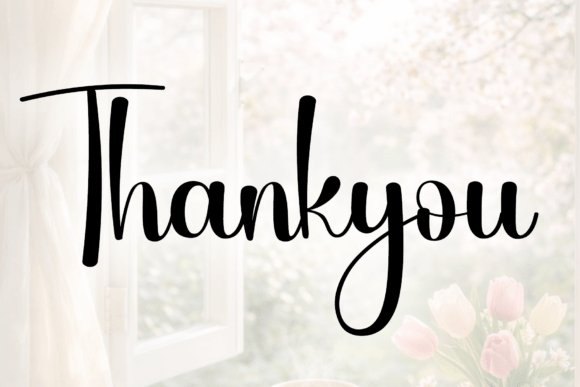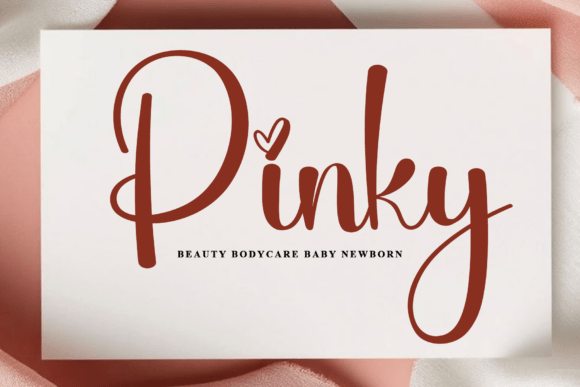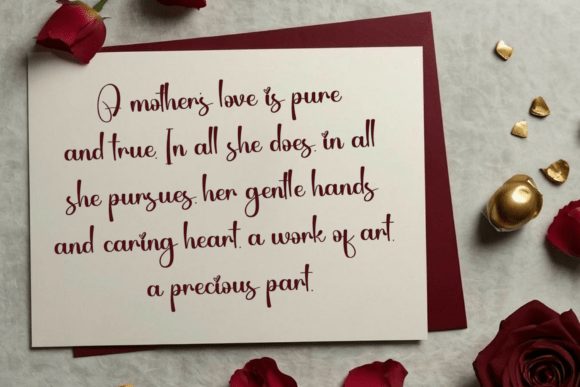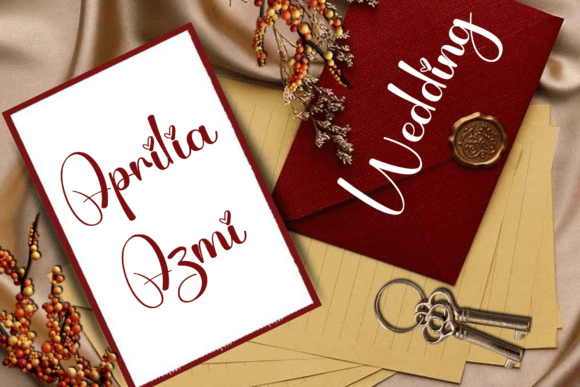
Unleash the Art of Typography
Have you ever stared at a blank canvas, wondering how to bring your creative vision to life? For designers, this moment is all too familiar. But what if your tools could help spark that first brushstroke of inspiration? Enter the Artistly Font, a sophisticated and rhythmic script font that embodies the perfect blend of artistry and precision.
This elegant font is designed to elevate your branding, packaging, and editorial titles to the next level. With its unique sweeping ascenders and warm, organic aesthetic, the Artistly Font is the perfect choice for artisans, boutiques, and upscale lifestyle marketers who demand a premium look and feel.
For designers, the Artistly Font offers a valuable resource for adding a touch of human emotion to their work. Its customized, artisanal style makes it an ideal choice for creating one-of-a-kind branding and marketing materials that truly stand out from the crowd.
Artistly Font Key Features
- Unique Characteristics: Hand-drawn design with intricate details and subtle texture, perfect for creative projects
Artistly Font Review
As a designer, I’m always on the lookout for unique and creative fonts to add some personality to my projects. Artistly Font is one of the latest additions to my font library, and I’m excited to share my honest review with you.
- Creative and Artistic Feel: Artistly Font has a distinctive, hand-painted aesthetic that adds a touch of whimsy to any design.
- Good Legibility: Despite its artistic feel, the font is still highly legible, making it perfect for body text and paragraphs.
- Limited Font Variations: While Artistly Font has a unique feel, it’s limited to a single style, which may not be suitable for more complex designs.
- Not Suitable for Headings: Due to its artistic feel, Artistly Font may not be the best choice for headings or titles, as it can be overwhelming.
Overall, I’m impressed with Artistly Font’s unique and creative feel. While it has some limitations, it’s a great addition to any designer’s font library, perfect for adding a touch of personality to body text and paragraphs. I’d recommend it for projects that require a playful and artistic vibe.
Artistly Font is perfect for:
- Designing creative and artistic graphics for social media.
- Creating invitations and event materials with a unique touch.
- Developing branding materials for creative and artistic businesses.